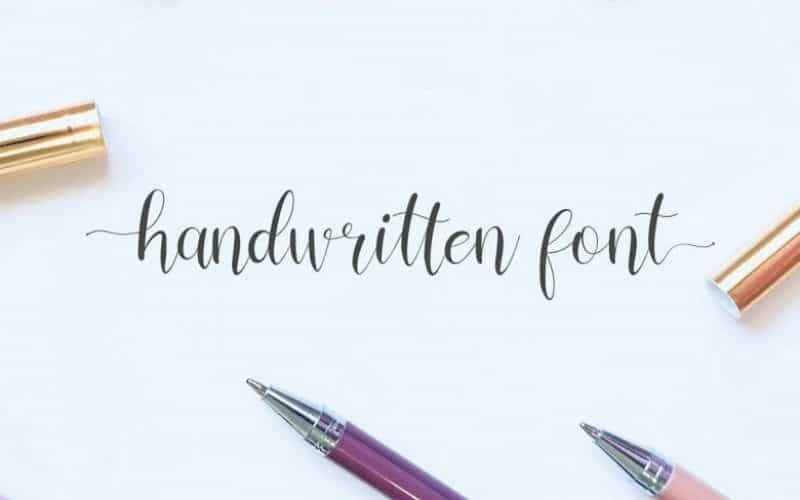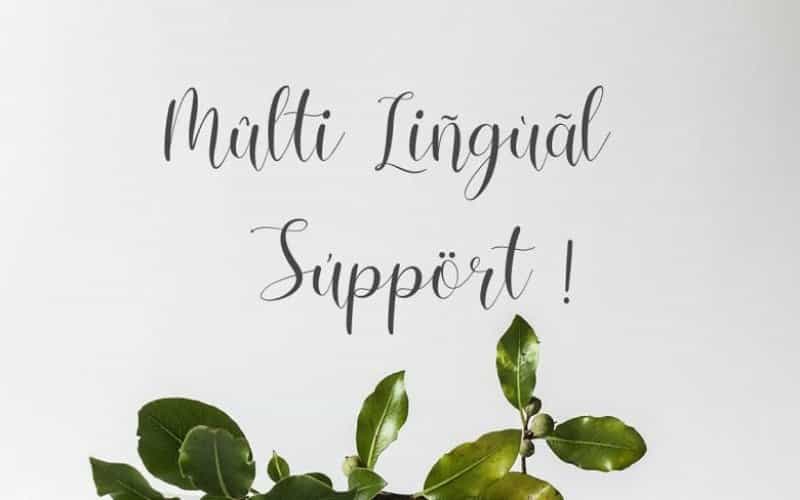
Vessia a lovely script font – a new modern & fresh script with a handwritten and script style make this font looks cute, elegant, stylish and perfect for any awesome projects that need lettering taste. Vessia would perfect for watermark, social media posts, advertisements, logos & branding, invitation, product designs, label, stationery, wedding designs, product packaging, special events or anything that need lettering taste.